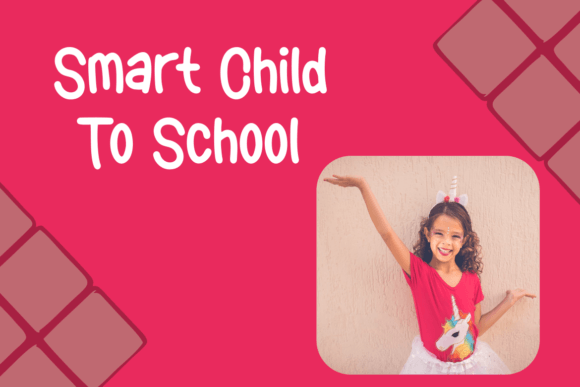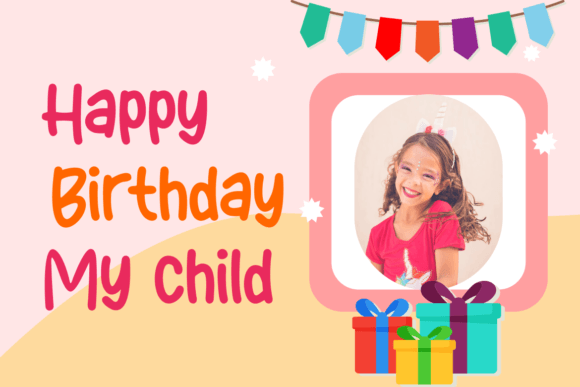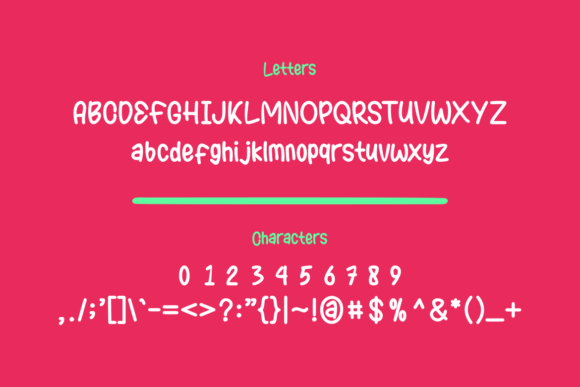
Bringing Your Designs to Life with the Cherdas Font
Have you ever stared at a blank page, waiting for the perfect font to spark your creativity? You know the feeling – the blank stare, the cursor blinking impatiently, the frustration growing with each passing second. But what if I told you that there’s a font that can change all that? A font that can breathe life into your designs, make them pop, and leave a lasting impression on your audience.
Meet the Cherdas Font, a beautiful and timeless handwritten font that’s perfect for creating eye-catching logos, branding, and quotes. With its unique and beautiful touch, every letter is a work of art that will make your design come alive. As a designer, you’ll appreciate the versatility and elegance of the Cherdas Font, making it an invaluable addition to your toolkit.
Cherdas Font Key Features
- Font Type: Display Font
- Character Count: 200+ glyphs, including Thai and Latin characters
- Size and Resolution: Supports font sizes up to 72pt, with resolutions up to 300 DPI
- Unique Characteristics: Custom-designed for readability in digital displays, with optimized letter spacing and line height for better text flow
Cherdas Font Review
Overall, I found Cherdas Font to be a decent choice for design projects, especially those requiring a unique and elegant feel. ✨ The font’s clean lines and subtle flair make it perfect for headings and titles, and it works well in both print and digital formats. ✨
One of the standout features of Cherdas Font is its versatility. It comes in a range of weights and styles, making it easy to find the perfect fit for your design. ✨ Additionally, the font is highly legible, even at smaller sizes, which is a major plus.
While Cherdas Font has its strengths, it’s not without its limitations. ⚠️ For one, the font can be a bit too ornate for some designs, making it feel overly busy or distracting. ⚠️ Additionally, some users may find the font’s italic styles to be a bit inconsistent, which can affect readability.
What I’d Change
- More consistent italic styles
- A wider range of ligatures and swashes
- A few more font weights to round out the range
Overall, I’d give Cherdas Font a solid 3.5 out of 5 stars. While it has its limitations, it’s a great choice for designers looking for a unique and elegant font. With a few tweaks, I think Cherdas Font could be truly exceptional.
Tips for Getting the Most Out of Cherdas Font
Use Cherdas Font in combination with bold or italic styles to add emphasis to your text.
Experiment with different font sizes to create visual hierarchy in your design.
Use Cherdas Font in conjunction with other fonts to create a unique and stylish look.
Cherdas Font is ideal for:
Displaying headings and titles in a modern and stylish way.
Creating a unique and eye-catching logo.
Adding a touch of elegance to your resume or business card.
Alternatives to Cherdas Font for Designers
Playfair Display is a luxurious, high-end serif font ideal for use in headings, titles, and other prominent text elements. It features elegant swashes and intricate details, making it perfect for formal or sophisticated designs.
Compared to Cherdas Font, Playfair Display has a more elegant and refined feel, making it better suited for high-end branding or luxury products. Cherdas Font, on the other hand, has a more rustic and vintage feel.
Anton
Anton is a modern sans-serif font designed for use in body text and headings. It features clean lines, a sturdy feel, and excellent readability, making it perfect for digital and print designs.
Compared to Cherdas Font, Anton has a more modern and minimalist feel, making it better suited for contemporary branding or digital products. Cherdas Font has a more vintage and distressed feel.
Merriweather is a classic serif font designed for use in body text and headings. It features a traditional feel, excellent readability, and a wide range of weights and styles, making it perfect for print and digital designs.
Compared to Cherdas Font, Merriweather has a more traditional and timeless feel, making it better suited for classic or heritage branding. Cherdas Font has a more rustic and vintage feel.